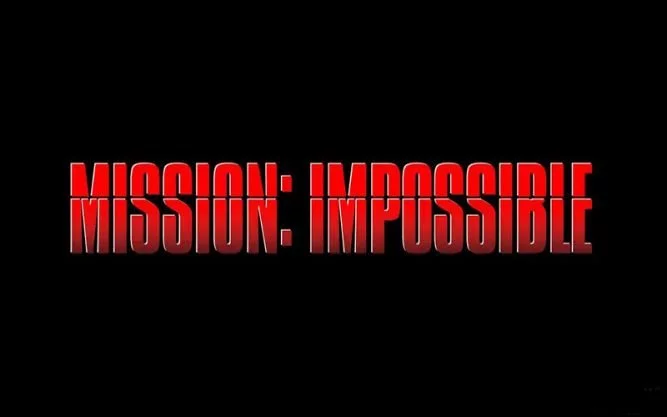
Mission Impossible font refers to the font used in the movie poster title that was designed by Tom Cruise in 1996. This is an action film that focuses on the story of Agent Ethan Hunt’s mission to locate a mole inside his CIA team.
This display font has come in seven unique styles with true type features. This font was designed by Apostrophic Labs. It has come in upper, and lower case letters, numerals, amazing some special marks.
Mission Impossible Font
| Style: | Basic, Display, Typeface |
| Font Designer: | Apostrophic Labs |
This typeface shows a great pair of fonts and is very popular in a very short time. Preview the character map images for more information on these fonts.